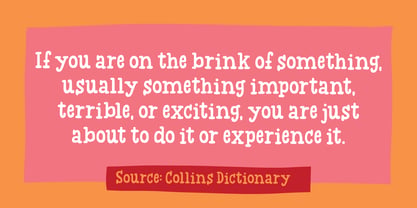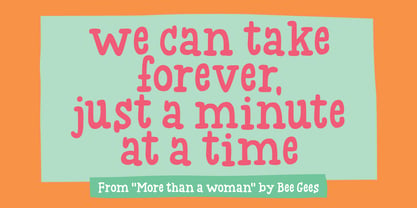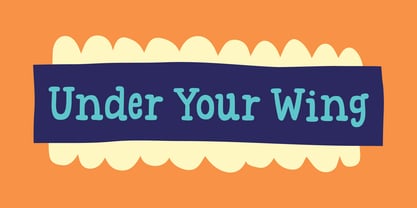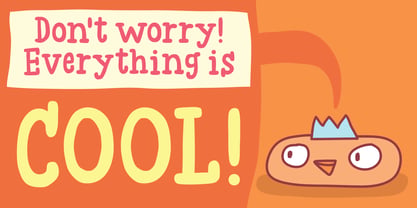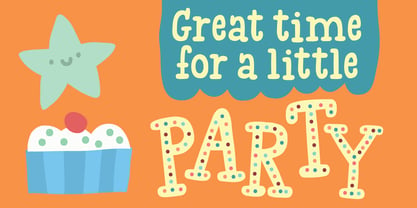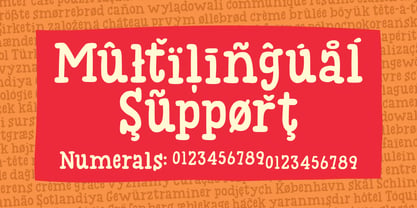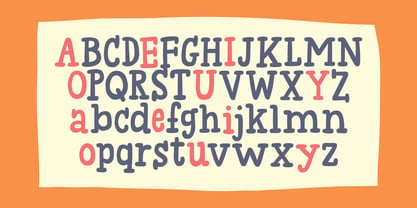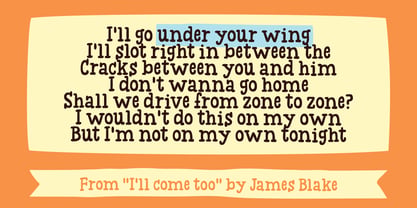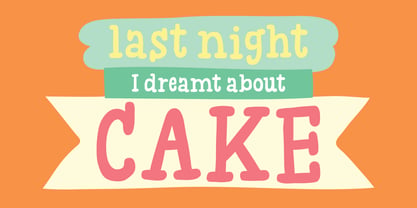
Under Your Wing
by PizzaDude.dk
The Under Your Wing Font Family was designed by Jakob Fischer and published by PizzaDude.dk. Under Your Wing contains 2 styles and family package options. More about this family
“Under “Your Wing” started out as a rugged, handmade font. I tested it several times, but something did not quite feel right. So, I started to manipulate and clean up every single letter, which was a time consuming action! But stil ... something did not feel right. Just as I was about to delete all work, I tried playing around one last time. Again, I manually edited each letter and cleaned up every curve ... again, super time consuming ... but this time I felt that I had created something good. I managed to keep like 10% of the handmade feeling, and the last 90% is my clean-up process! But take a look at the font, and see if you can tell the process from 100% handmade, to 10%! :)
Designers: Jakob Fischer
Foundry: PizzaDude.dk